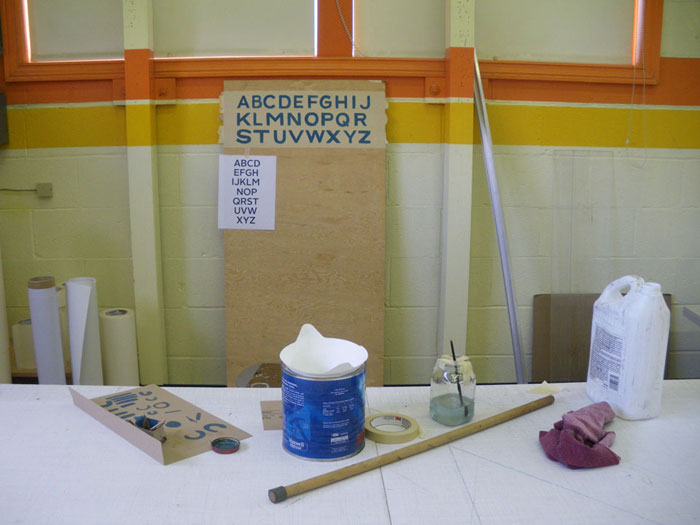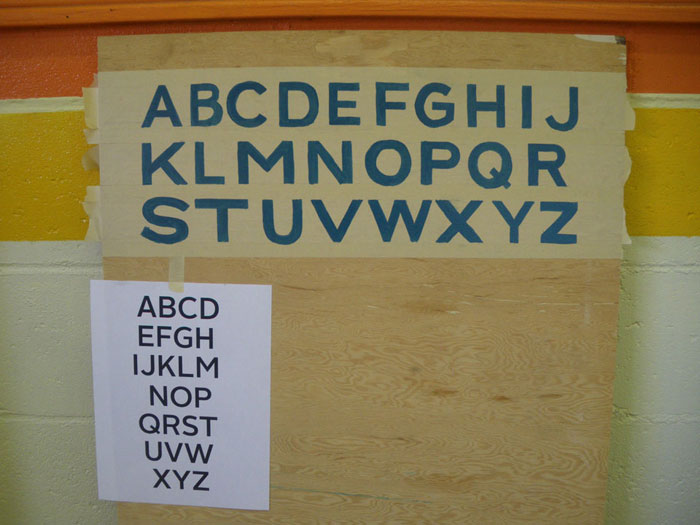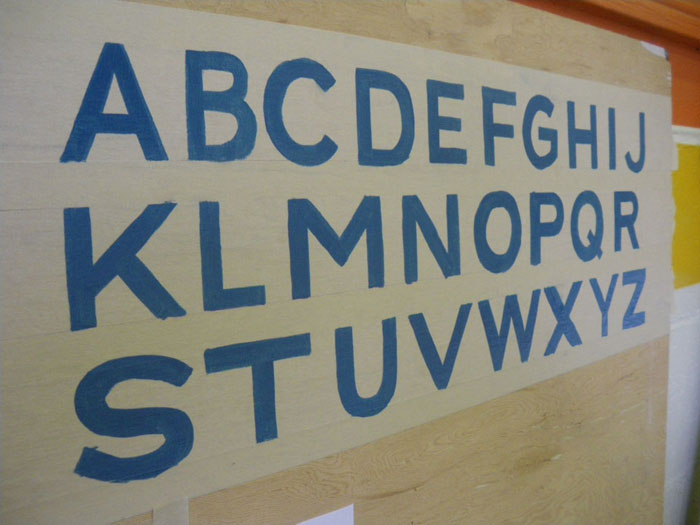
First Attempt
Well here it is, my first alphabet. Any comments or constructive criticism are welcome.
I found an old #6 Mack brush laying in oil in a locker along with several cans of 1 Shot and some mystery paint in a baby food jar which I used here. It worked just fine though I think I thinned the paint a little too much. I tried both maul stick and hand on hand for this and prefer a maul stick so far. I decided to do this on a vertical board because it just felt more comfortable than flat on a table.
My apologies to the letters B, G, S & X...
You're a very brave man.
Appology accepted, you meant no harm.
Larry is right !! You are a very brave man.
My guess is you have had some practice.
I would carry your brushes anytime. Nice Job.......
Trade secret from the hills of Ohio. Place Scotch tape above and below the letters to square the corners.
I have a question. Are you beginning to learn hand lettering with enamel sign paint, or tempera water color?
Back in sign arts class(1972), I began hand lettering with tempera colors and red sable brushes. I believe it is better to begin with water colors
for several reasons. First, there is less of a load on the brush, so you can really see what the brush is doing, and by watching the hairs adjust as you make your strokes you will greatly learn how to "chisel" your beginning and ending strokes to achieve nice square block letters without placing down tape. I see antique signs where the painter actually accentuated this chisel effect to make the characters appear very sharp and crisp.
Other reasons are simply time savers like, less time thinning and faster clean up. Also and no paint fumes.
To Larry and James, thanks for the replies. I'm not trying to win any medals, just to get some feedback. This really is my first try lettering. I've heard the tip about using tape and I should try it out but I'd like to not have to depend on it.
Patrick, I was using lettering enamel here. Just what happened to be around. I was going to try and get some new brushes tomorrow so maybe I'll pick up some water colours for practice as well. Thanks for the suggestion.
Looks good enough to read!
My suggestion is try making some signs that will be actually used at your business or as gifts for your family. The added pressure helps.
Good luck Paul the Brave!
The first step on a long road.
I (whoever I am) would suggest staying away from tape. It teaches you nothing. You need to be able to see the letter shapes as you form them. Neatness will come with practice.
Use enamel. You wont be painting many signs with water color. My missis wants a dog, so i've borrowed a goldfish to see how she gets along with pets.
Use long length / signwriters length sable brushes. Are they harder to use than shorter brushes? I don't know. If they are, the payoff is miles and miles of stroke on a single load. Use them and don't question them. Practice.
Lastly, teach your self to teach your self. Now you have apologised to letters B,G,S & X...... buy them flowers and take them out to dinner.
Well done.
Good luck.
That is all.
not bad for a first go. Good on you.
I suggest practicing basic strokes as a first stage....just do a whole lot of strokes...verticals, horizontals, diagonals, and half-circle curves, both left and right. The aim is to get a clean, even line of consistent width.
The next stage is practicing corners...do a vertical stroke and then do a connecting horizontal stroke, concentrating on getting a clean sharp 90 degree corner. To do this, you twist the brush slightly. You have four corners to master...top left, top right, lower left and lower right.
Hey Patrick,
Sidebar you wrote <Back in sign arts class(1972) I notice you too are in So Cal., did you go to L.A.T.T. for sign graphics?
As for hair...squirrel is softer. It strokes nicely but it flops with a full load of paint. Sable, whether it be either Kolinsky, Chinese or Red, has a nice combination of flex/springiness and softness.
Don't get too caught up in having to have the best and longest Kolinsky sable. I love my Raphael Kolinsky sable pencils, but I can still paint quite happily with a budget-priced alternative. And while length is good for long strokes and painting outlines, sometimes a short brush can be flicked around more easily for small lettering, such as names on honor boards.